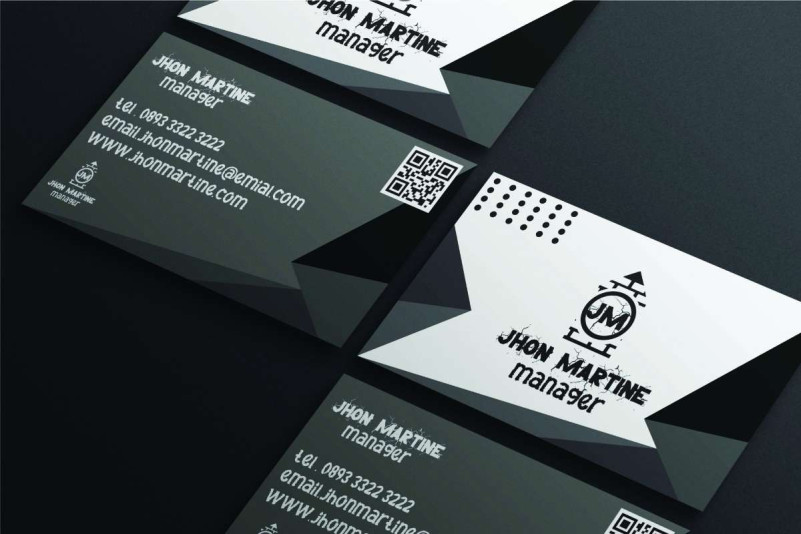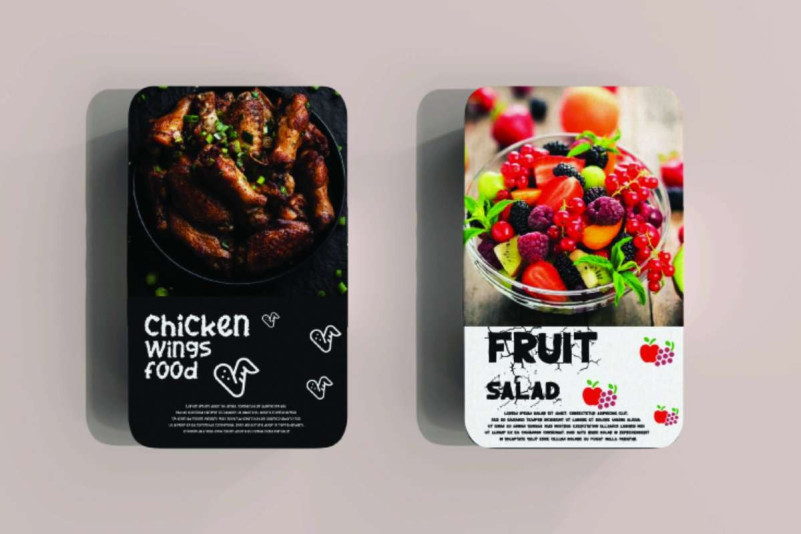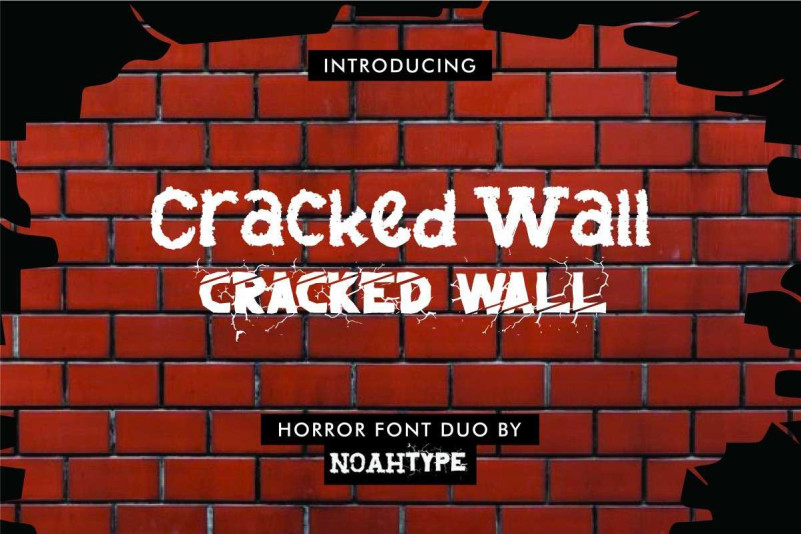
Cracked Wall Font
Cracked Wall Display Font is a special display font with two different options : textured and cracked. The characters of these two fonts look gripping at the same time with moss and root variation, and still easy to read. It will be great for any industry, such as accessories, café, event organizer, fashion, film, game, music, printing, restaurant, sport, etc.
Both styles of Cracked Wall Font include a full set of Uppercase and Lowercase Characters, Numbers and Punctuation. However, the difference lies in the Character set Root, which is made ALL CAPS in Upper and Lowercase letters. Also it contains alternate character to make your designs standout. It will be amazing for many projects, such as business card, custom design, poster, product packaging, quotes, signage, website, and any project that requires a horror look!